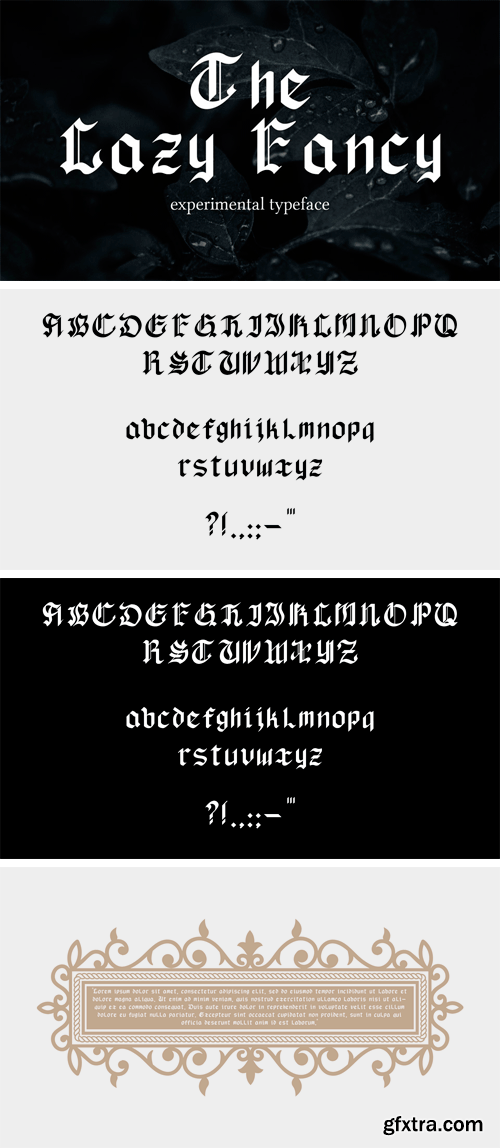
The Lazy Fancy Font
The Lazy Fancy is a experimental font that created just fooling around with the calligraphy brush in PS, so it looks very plain and simple. It has just the basic characters from A to Z, numbers, and some punctuation.